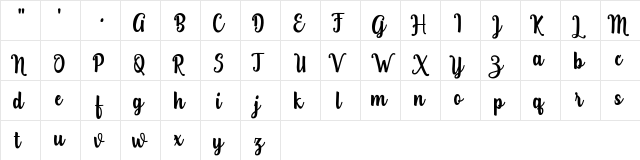
Teiqulato Free Regular
| Foundry | Doel |
| Designer | fajri yandi |
Design Context for Teiqulato Free Typeface
Teiqulato Free is a composed and adaptable typeface that performs quietly and consistently across a wide range of design contexts.